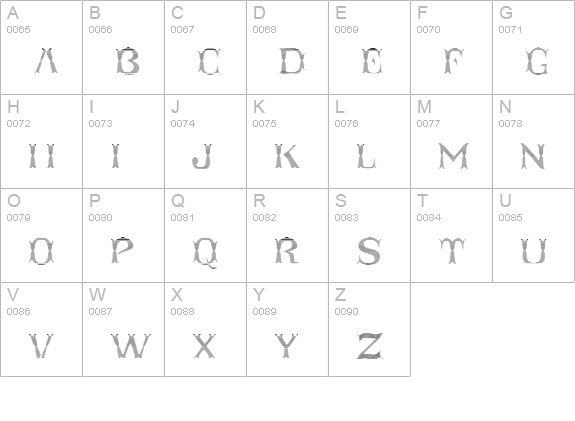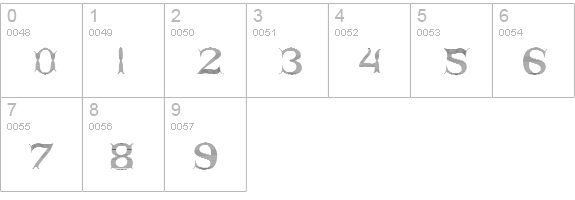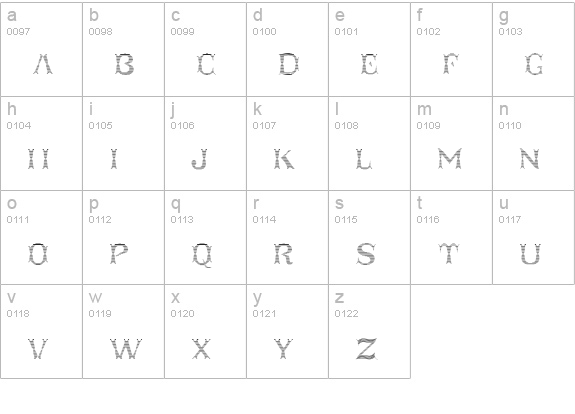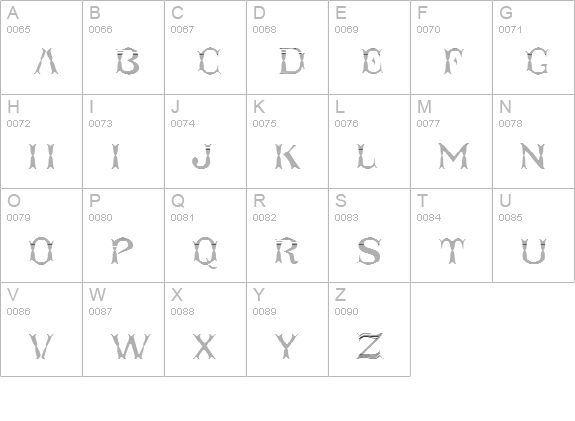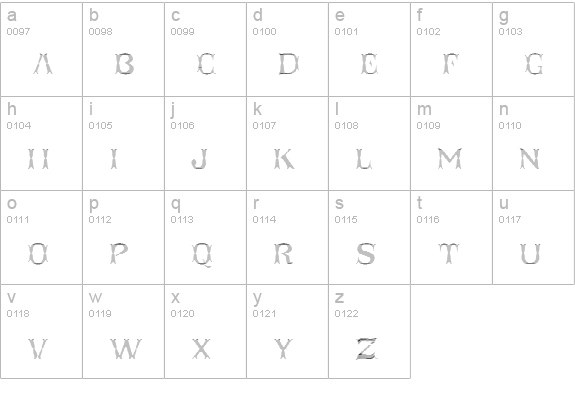
Taqueria Black Fill Lines is a maximum-weight, dramatic variant in the Taqueria typeface family \xE2\x80\x94 well suited to maximum-impact headlines, posters, and packaging.
Taqueria Black Fill Lines font is a bold and captivating typeface that will add a touch of uniqueness and creativity to any design project. Its intricate lines and sharp edges create a visually striking appearance that demands attention. This font is perfect for those looking to make a bold statement and stand out from the crowd. The Taqueria Black Fill Lines font is inspired by the vibrant and lively atmosphere of a bustling taqueria, with its rich colors and flavorful aromas. It captures the essence of this cultural experience and translates it into a visually stunning font that is sure to leave a lasting impression. One of the best aspects of this font is that it is free. Yes, you read that right - absolutely free! You can easily download Taqueria Black Fill Lines font at FontsMarket.com, a trusted source for high-quality fonts. This means that you can enhance your design projects without breaking the bank. Whether you're working on a logo, poster, menu, or any other design project, Taqueria Black Fill Lines font will add a touch of creativity and excitement. Its bold and eye-catching appearance will instantly grab attention and make your design stand out from the rest. So why wait? Download Taqueria Black Fill Lines font today and let your creativity run wild. Whether you're a professional designer or just starting out, this font is sure to be a valuable addition to your font collection. Don't miss out on this opportunity to bring your designs to life with this freely available font.